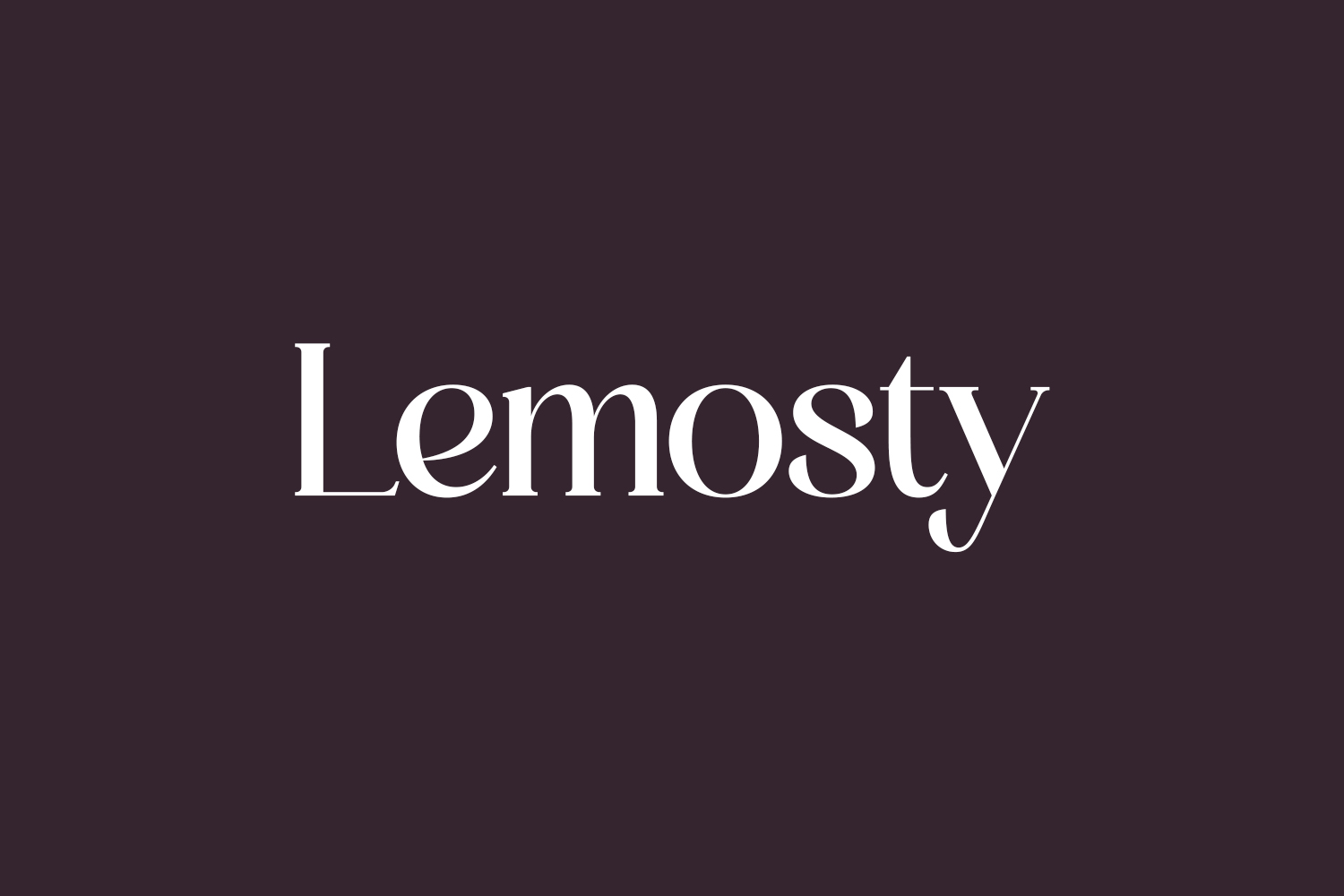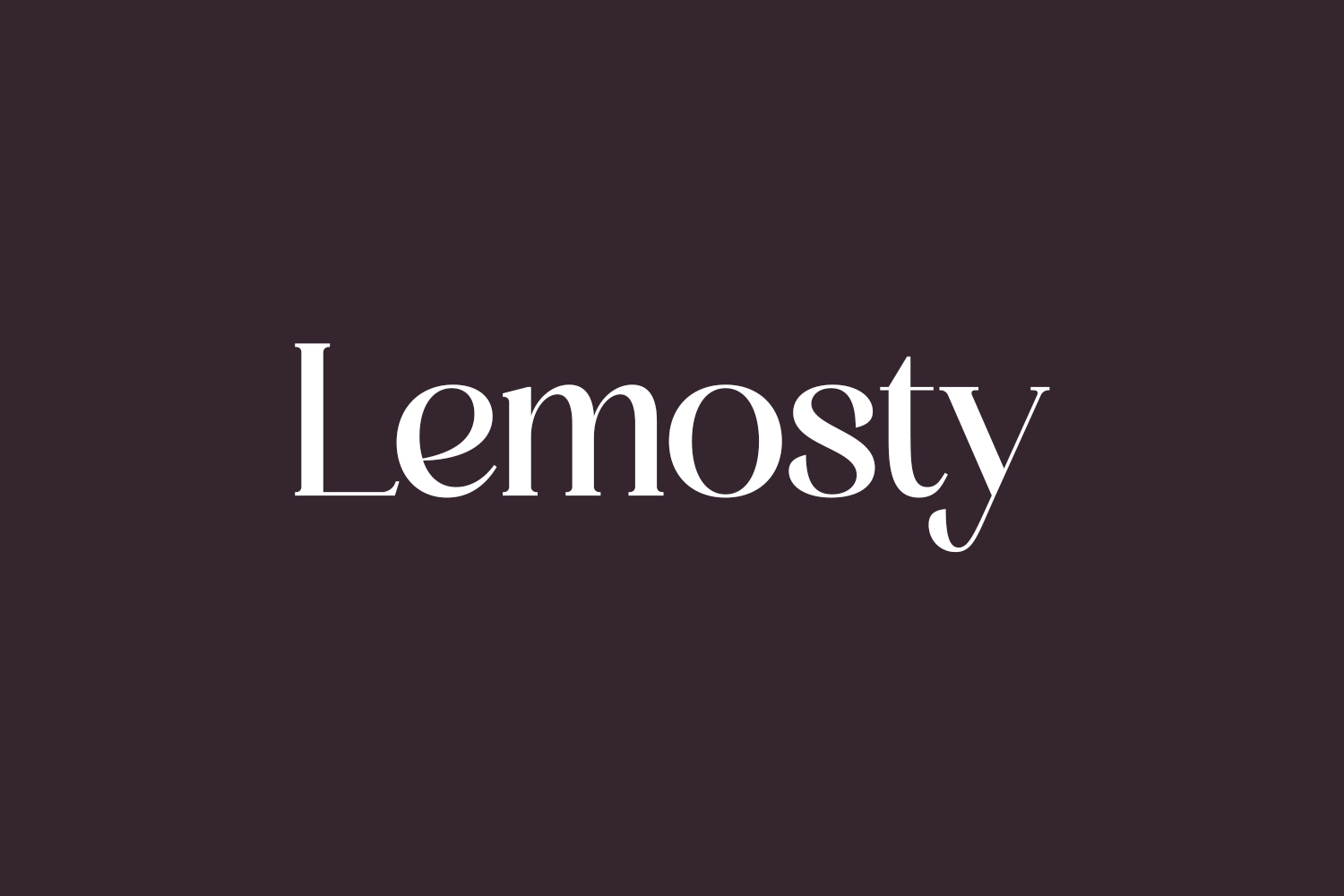
Discover Lemosty Free Font, a contemporary and sophisticated serif font that exudes a unique style and a touch of luxury. This typeface is an ideal choice for creating elegant logos, captivating book or movie titles, luxurious fashion brands, stylish magazines, clothing designs, lettering, quotes, and much more. Lemosty Free Font is free for personal use only. Please purchase the full version for commercial use.